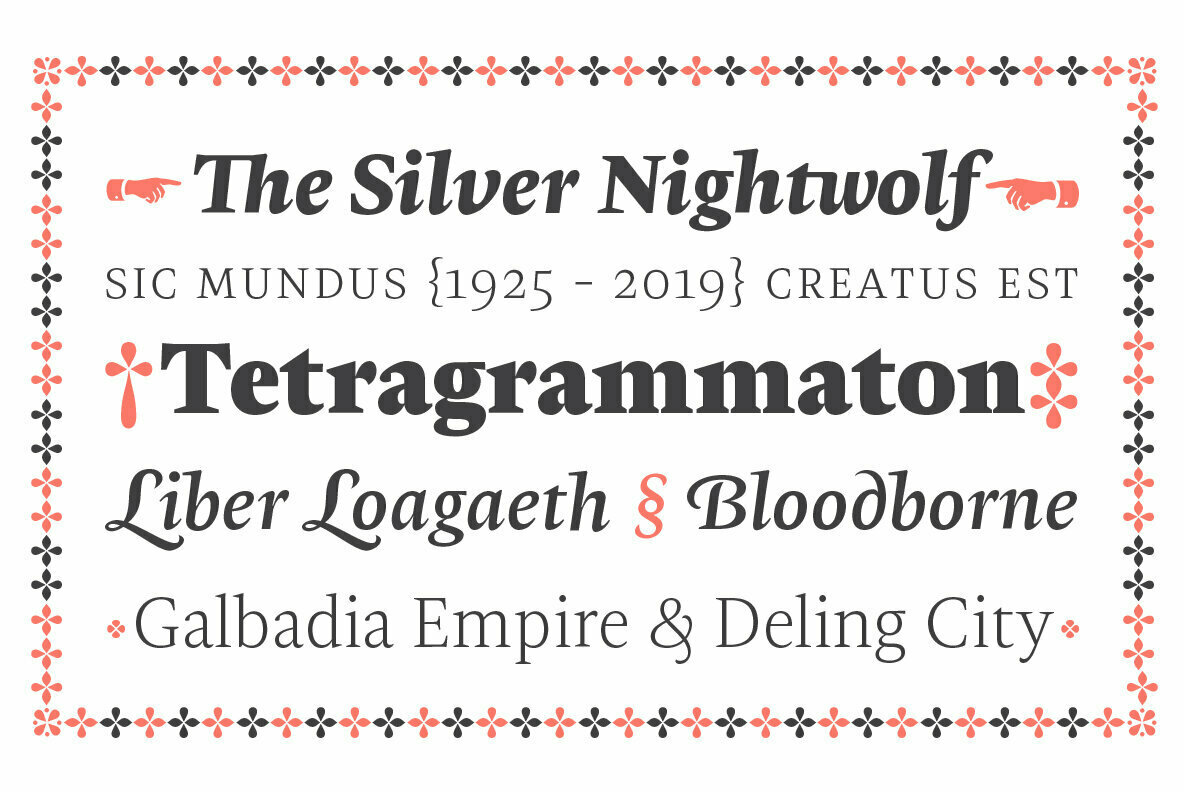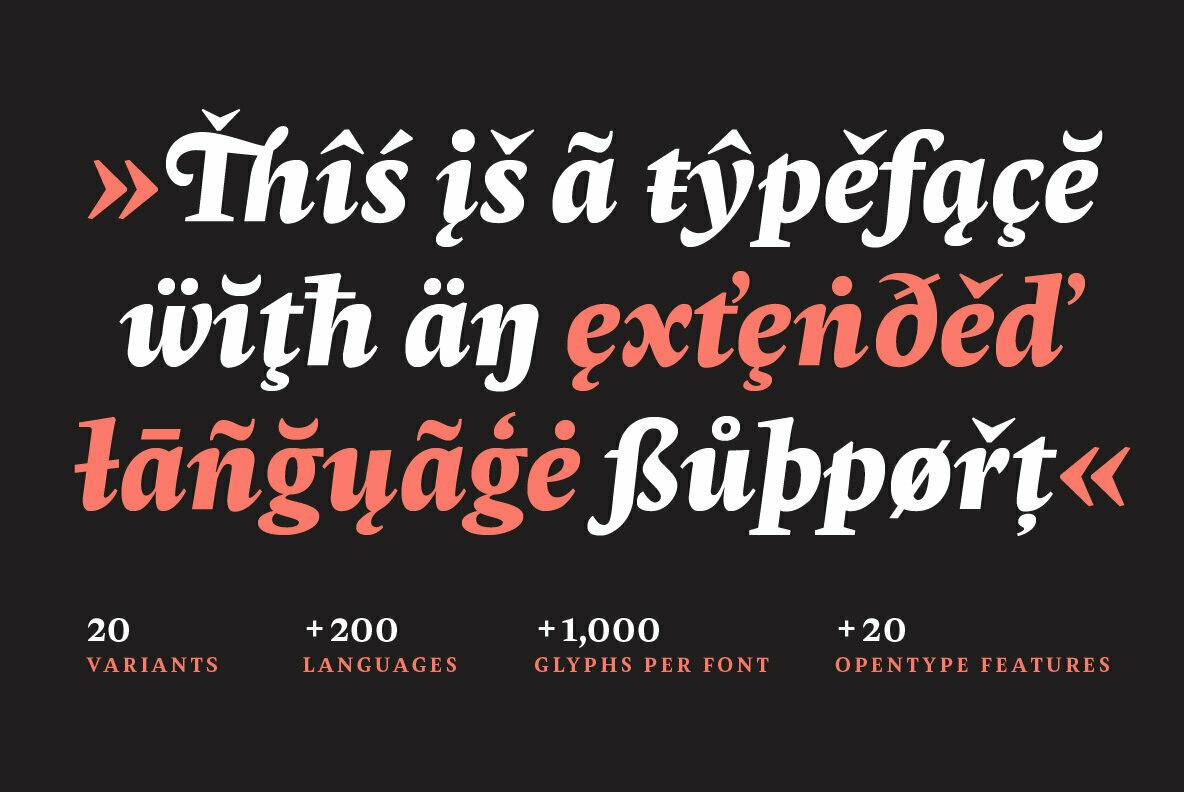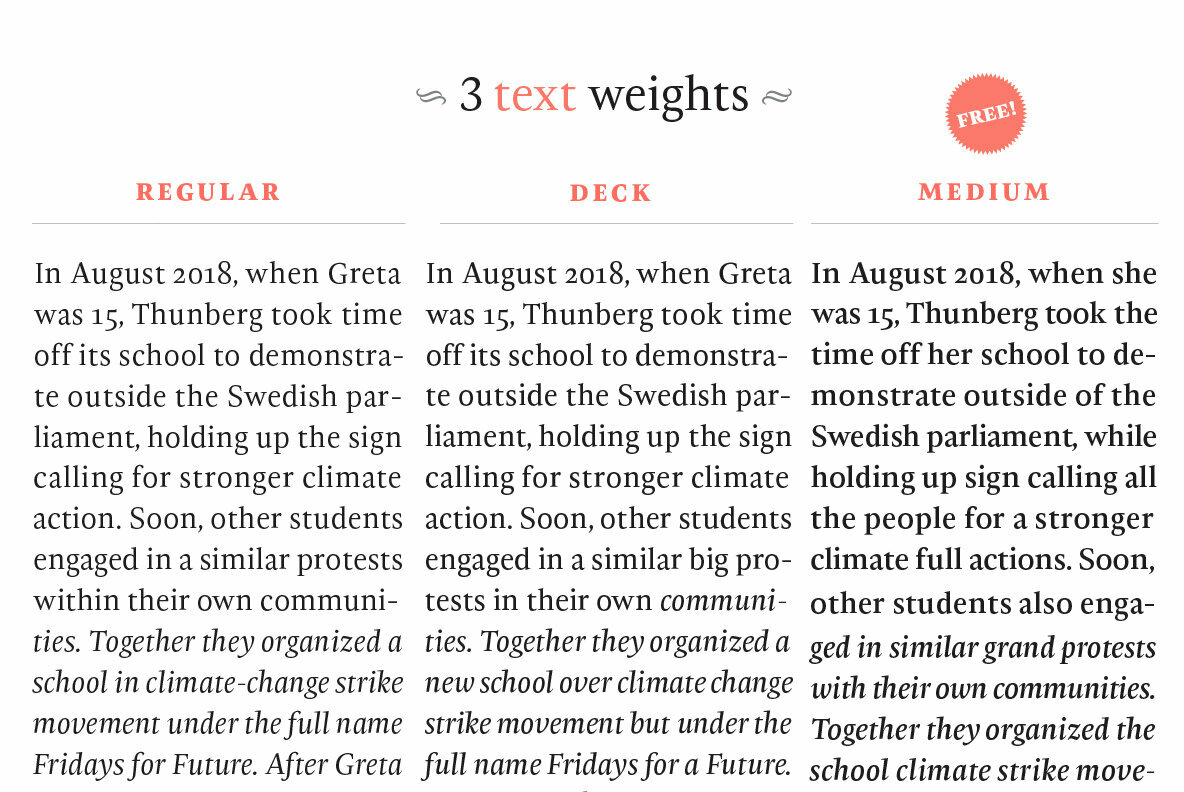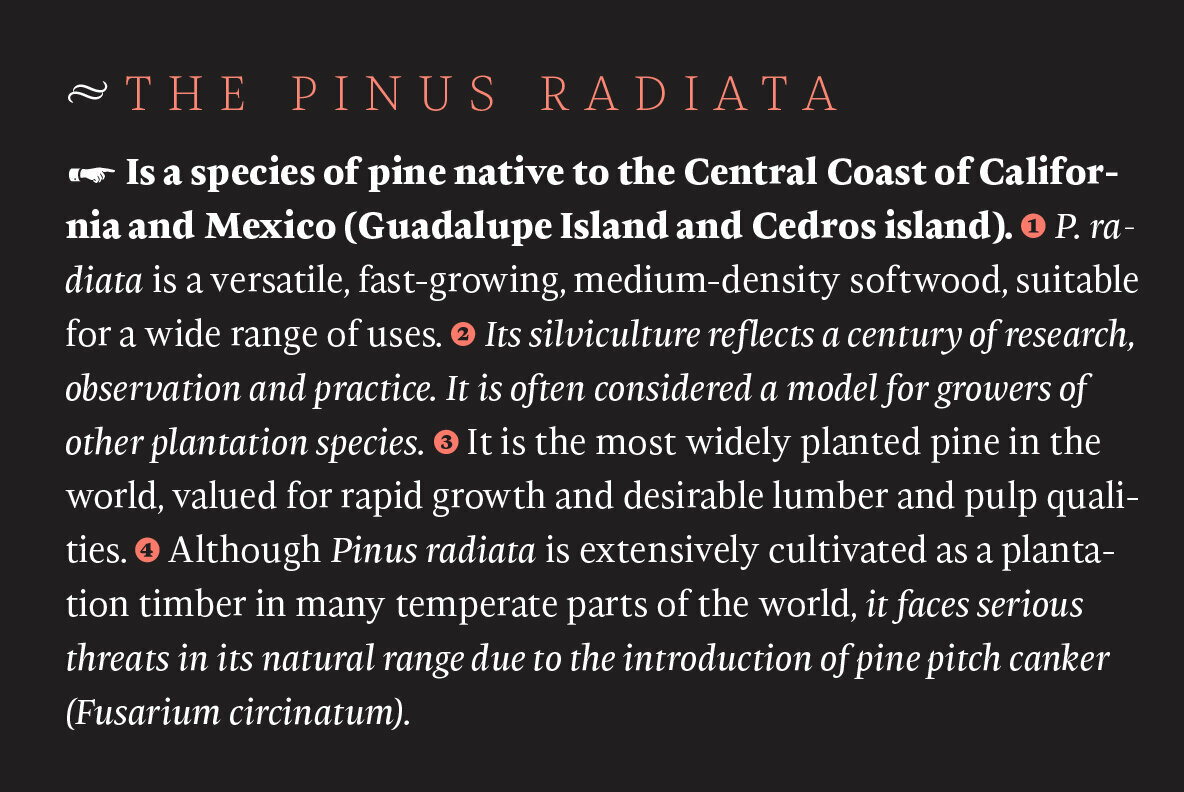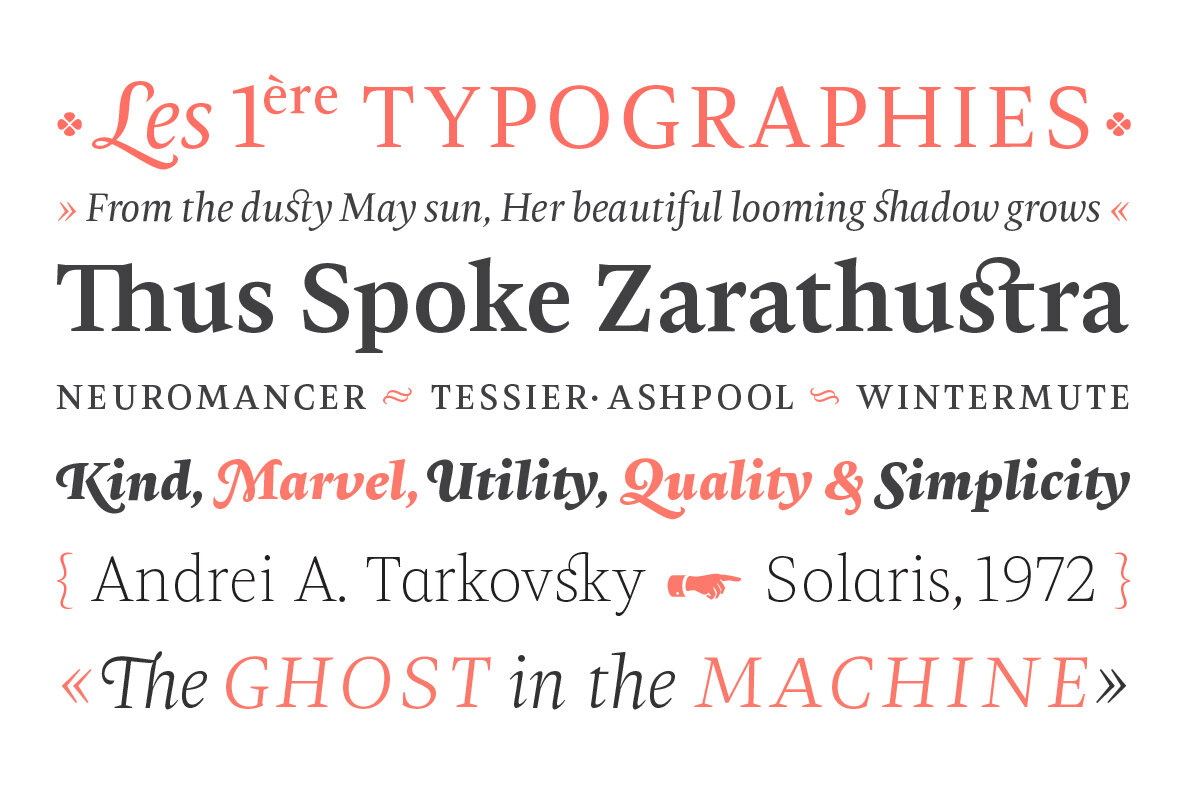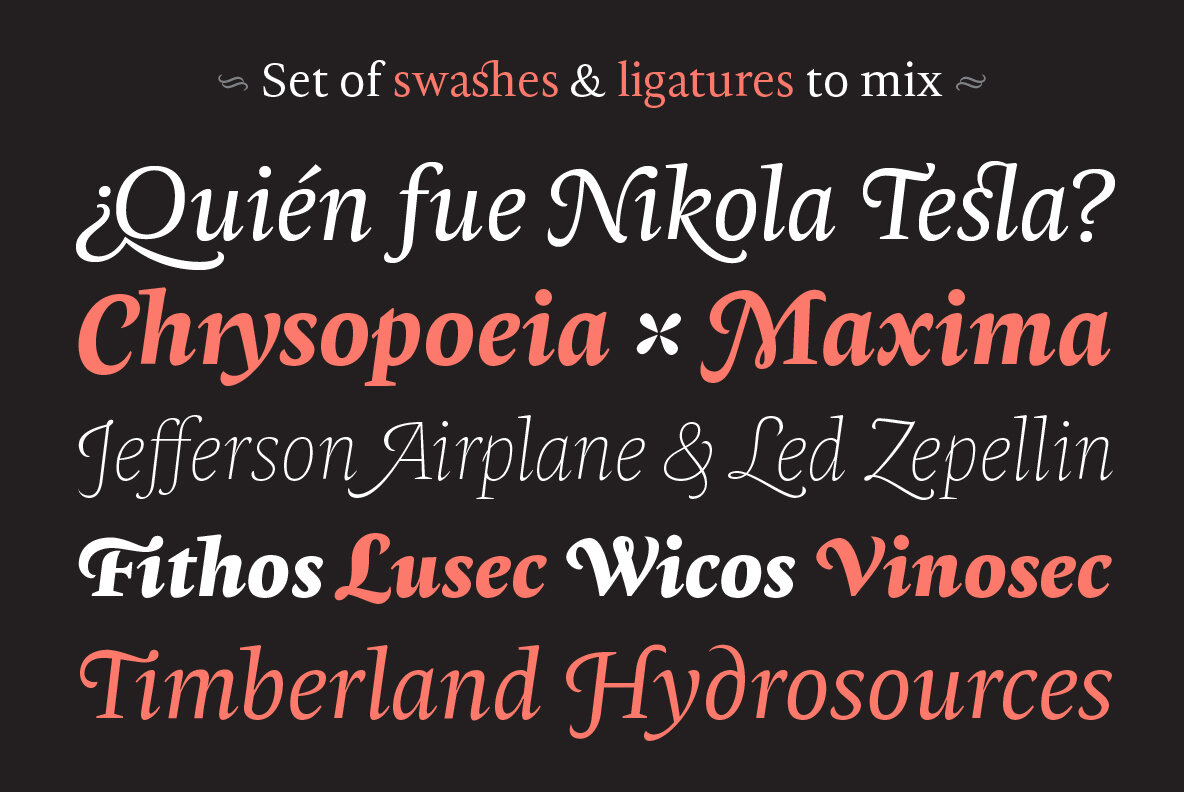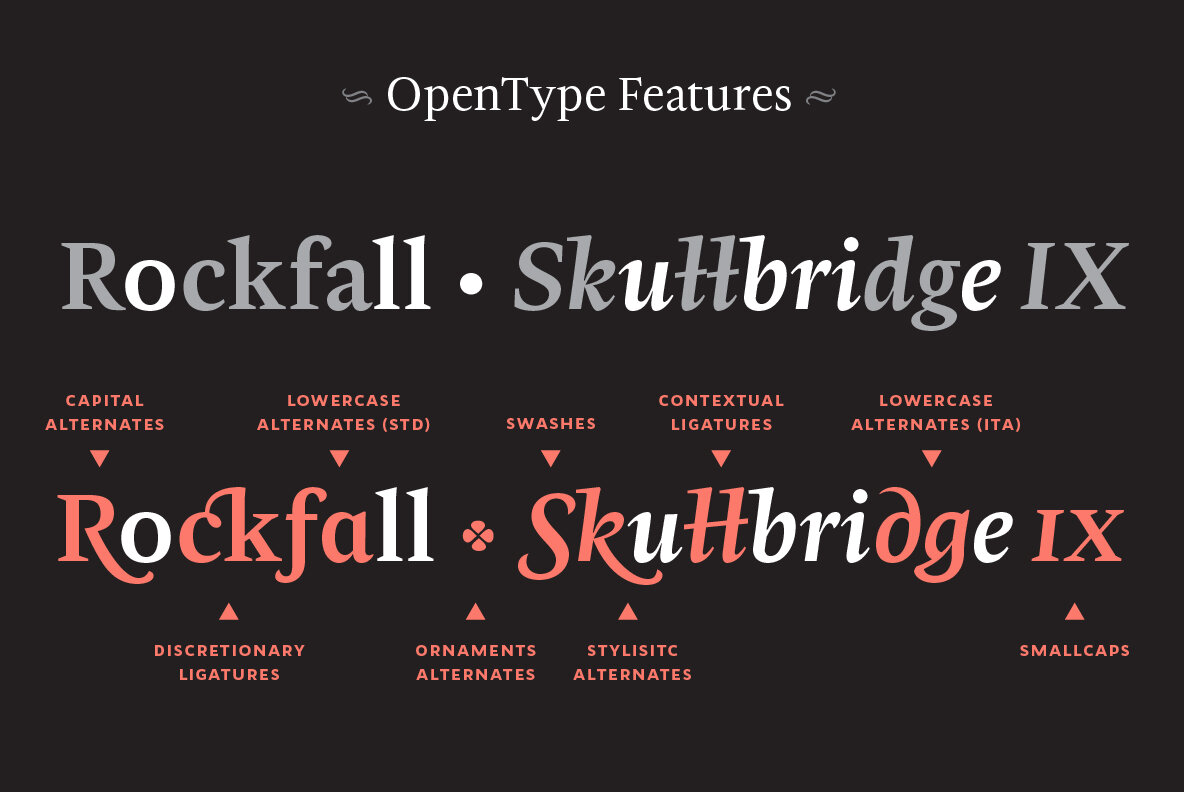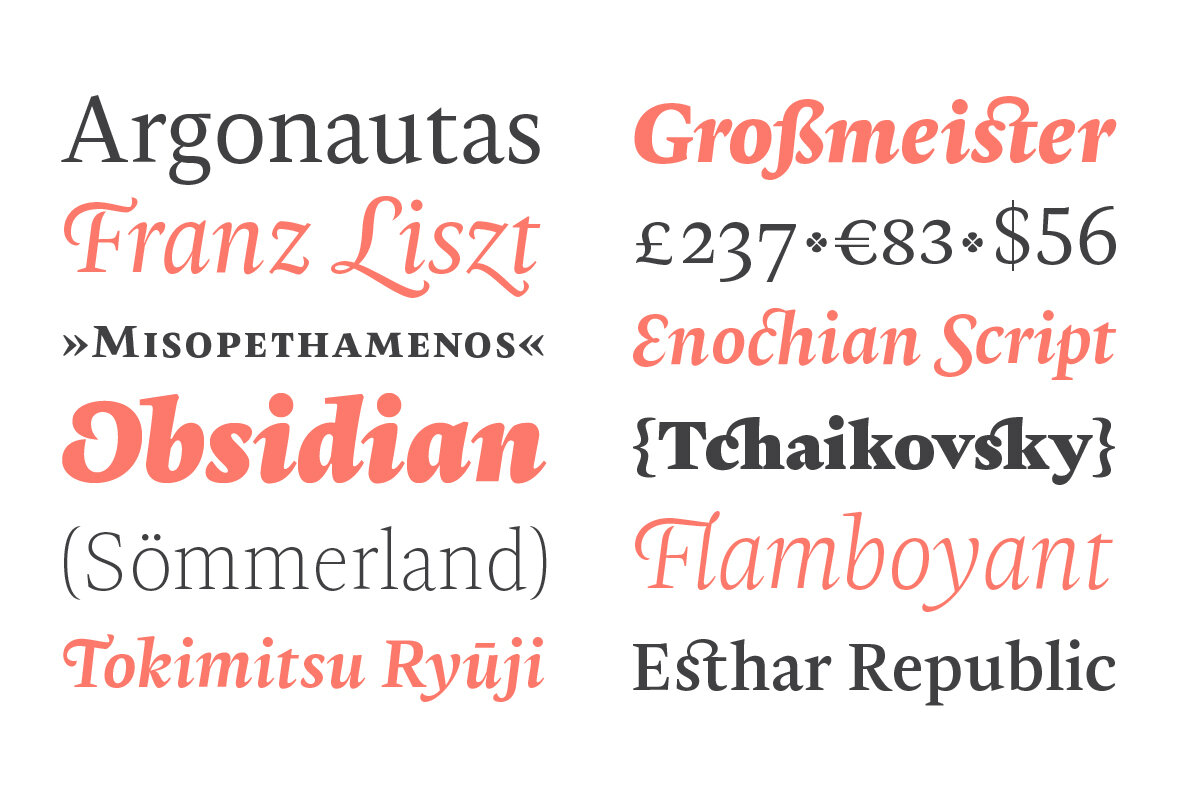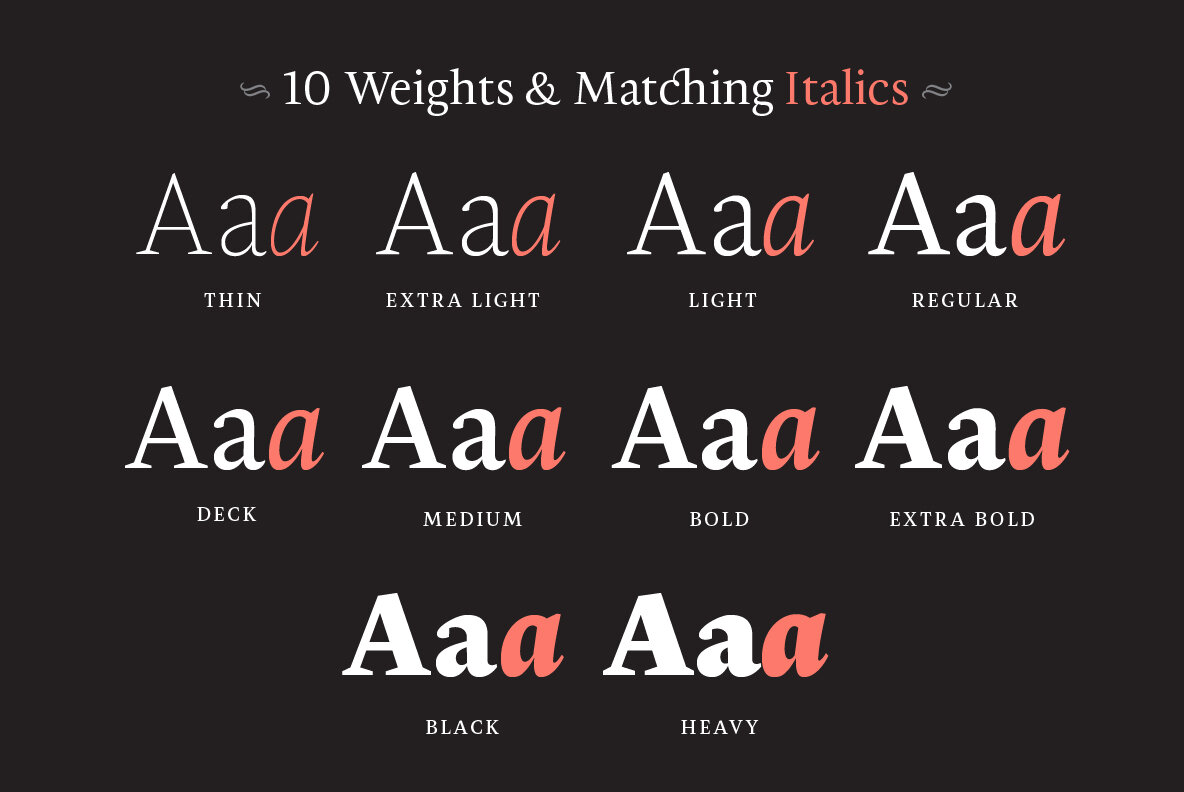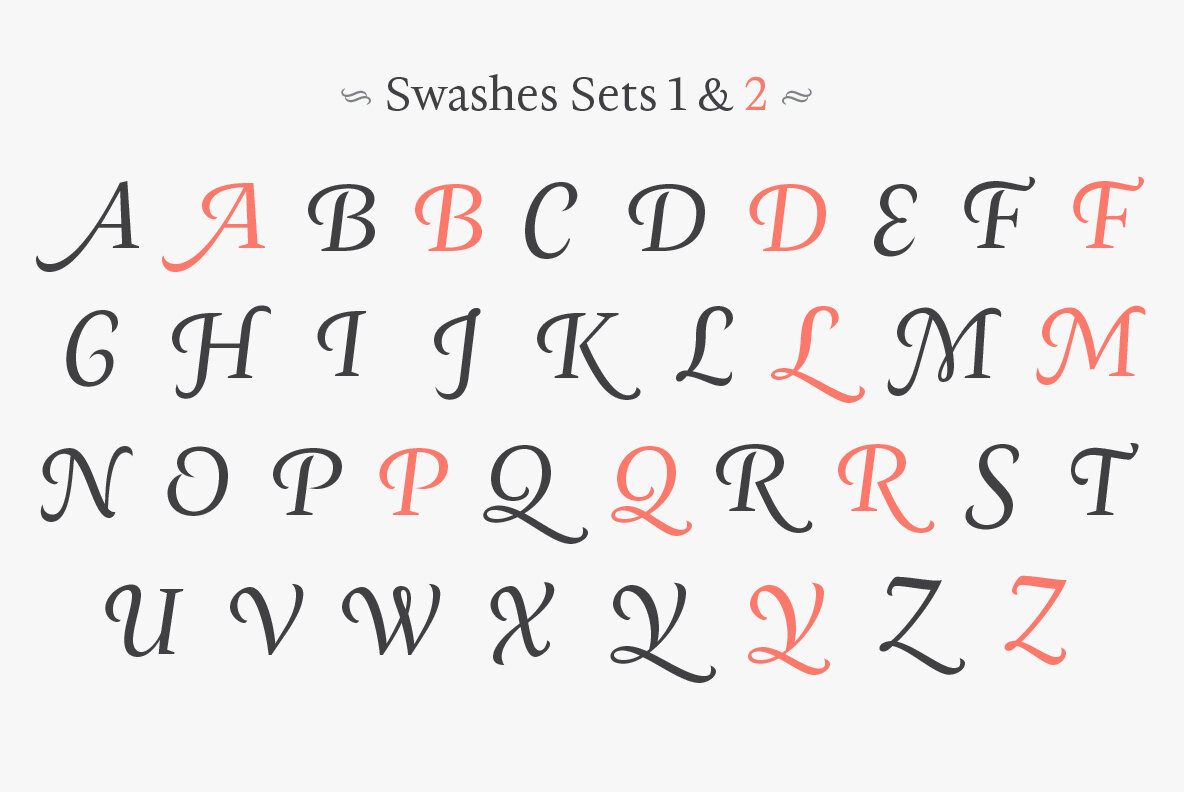
Radiata Font
Type designer Sergio Leiva delivers another highly inspired text typeface that honours both, nature and type tradition. Radiata looks strong on its structure yet delicate on its terminals and serifs, and bring a sense of modern rationality to the composition because its proportions and vertical stress at the time that flourishes organically and full of details on display settings.
The family has 10 weights, ranging from Thin to Heavy (plus matching italics) including 3 weights especially optimised for long text settings. Ideally suited for book text, editorial and publishing, advertising and packaging, logo, branding and creative industries, small text as well as web and screen design.
Radiata provides advanced typographical support with features such as ligatures, small capitals, alternate characters, swashs, case-sensitive forms, fractions, and super- and subscript characters. It also comes with a complete range of figure set options – oldstyle and lining figures, each in tabular and proportional widths. Considering all this Radiata is a must have for every designer or type user looking for a versatile and reliable workhorse.